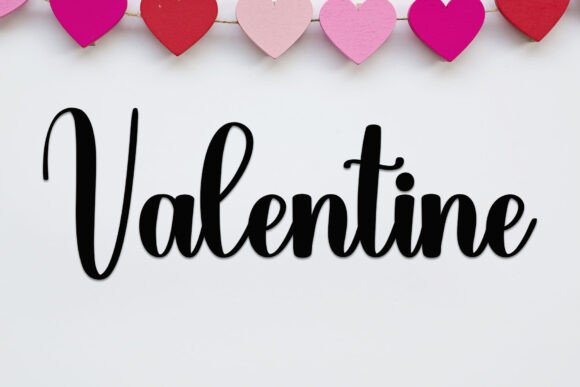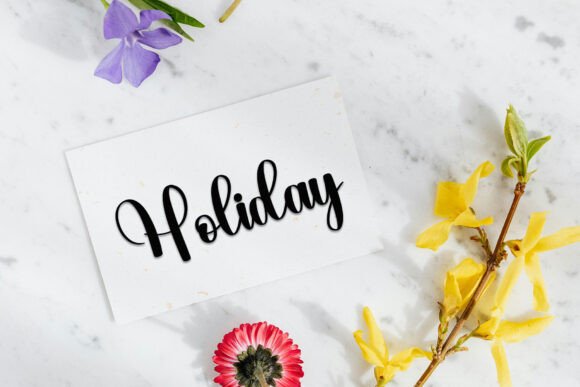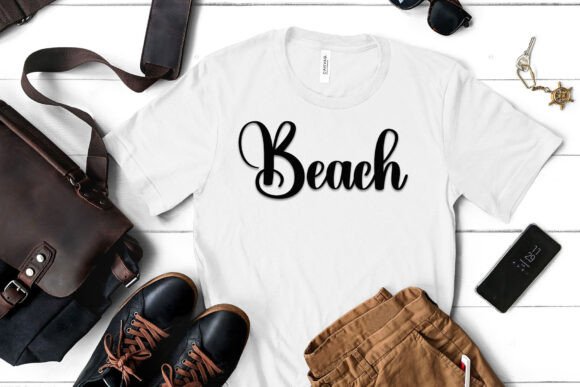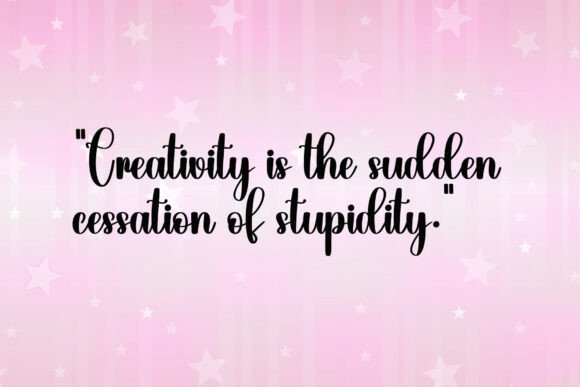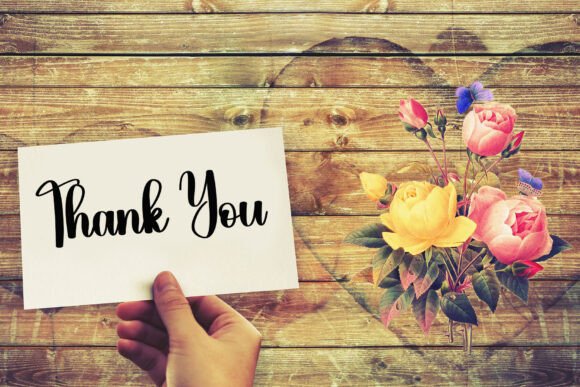
When a Font Speaks to Your Soul
Do you remember that one moment when you stumbled upon a font that made your heart skip a beat? Maybe it was the perfect combination of curves and lines that instantly sparked a design idea in your mind. For me, that moment came when I discovered the Baby Font.
This sweet and cursive handwritten font is more than just a pretty face – it’s a designer’s best friend. With its gentle touch, Baby Font adds a joyful and romantic flair to any project, making it perfect for branding, logo design, wedding stationery, and more. Whether you’re a seasoned pro or a design newbie, this versatile font will help you create stunning visuals that leave a lasting impression.
Baby Font Key Features
- Unique Characteristics: Baby Font features a unique, playful design with rounded edges and a soft, cursive feel, making it perfect for creating a warm and inviting atmosphere in designs.
Baby Font Review
When I first stumbled upon Baby Font, I was intrigued by its playful and cute aesthetic. ✨ The font’s rounded shapes and bubbly feel immediately make you think of baby-related themes, which is perfect for nursery decor, children’s products, or any project that needs a soft, gentle touch.
Here are some of the things that I think work well with Baby Font:
- ✨ Unique and creative: Baby Font stands out from more traditional fonts with its whimsical design.
- ✨ Versatile: It can be used for a wide range of applications, from titles to body text, and even for decorative purposes.
- ✨ Easy to read: Despite its playful nature, Baby Font is surprisingly easy to read, even at smaller font sizes.
However, I do have some concerns about Baby Font:
- ⚠️ Limited character set: Baby Font has a relatively small character set, which might make it difficult to use for longer blocks of text.
- ⚠️ Not ideal for complex layouts: Baby Font’s rounded shapes can make it challenging to create complex layouts or designs with multiple font sizes and styles.
Overall, I think Baby Font is a great choice for projects that need a lighthearted and playful feel. While it has some limitations, its unique design and versatility make it a great addition to any designer’s toolkit.
Some common use cases for Baby Font include:
1. Creating playful and whimsical designs for children’s products or educational materials.
2. Designing invitations or party decorations for baby showers or kids’ birthday parties.
3. Creating customized graphics for baby-related products or services.
For the most effective use of Baby Font, keep your designs simple and bold, and use the font in conjunction with bright and playful colors.